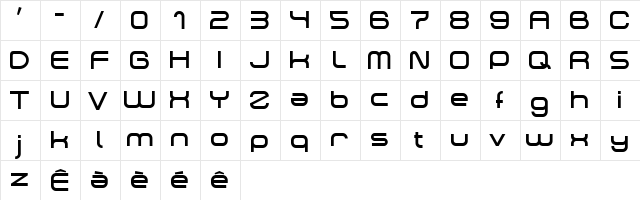
Dekers_Bold Dekers_Bold
| Foundry | BenoԴ Sjڨolm |
| Designer | BenoԴ Sjڨolm |
Design Context for Dekers_Bold Typeface
Dekers_Bold offers clean, dependable letterforms without strong stylistic allegiance, making it a practical choice for designers who need flexibility. Its bold stroke weight gives it real presence on the page.